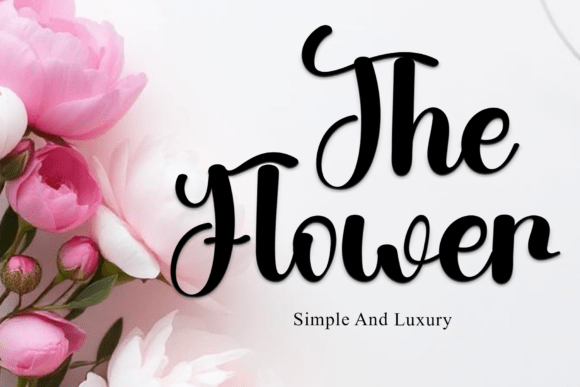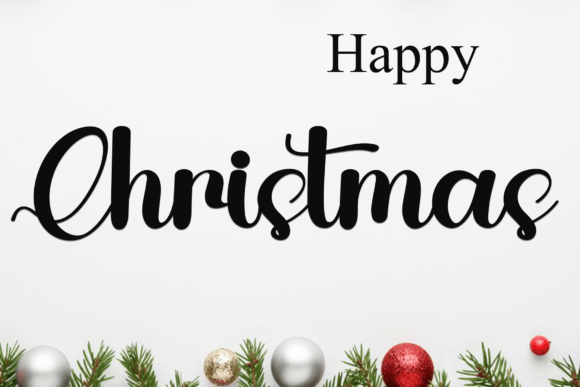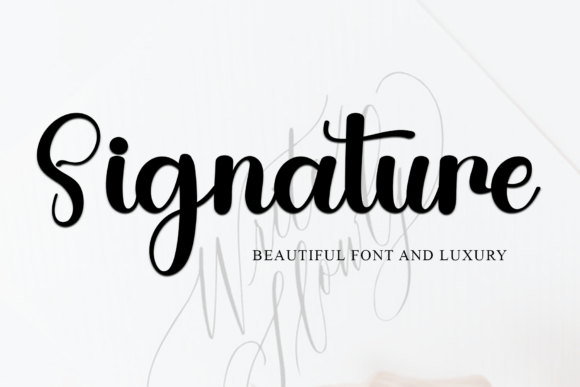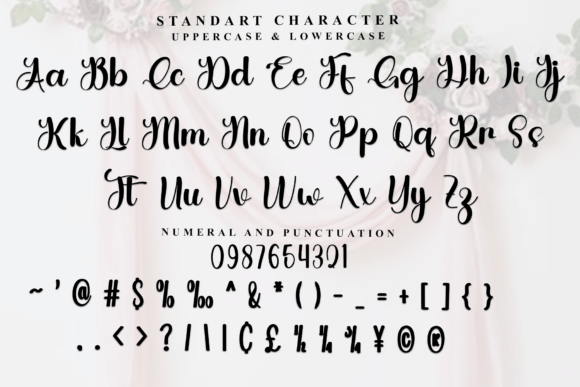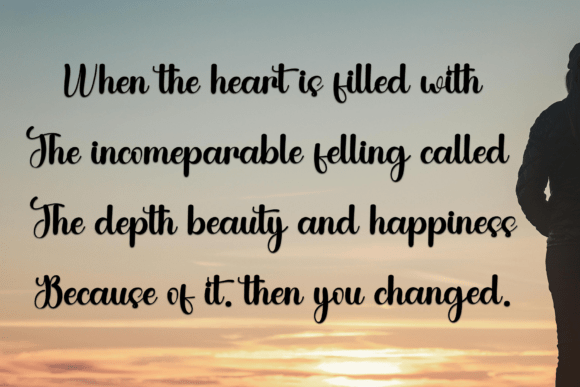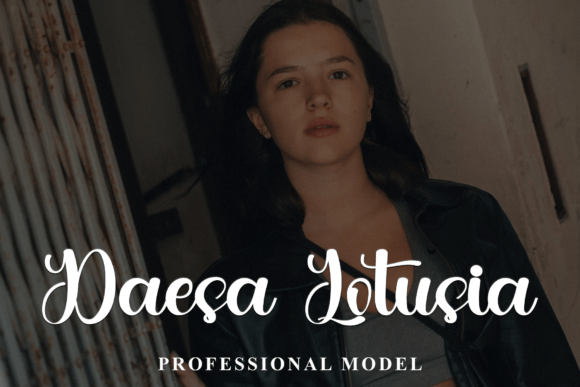
Introduction to Funny Mother Font
Have you ever found yourself scrolling through social media, coming across a post that makes you smile, and immediately wishing you had the design skills to create something just as delightful? For designers and non-designers alike, finding the perfect font can be a game-changer. That’s where the Funny Mother Font comes in – a casual and creative font that exudes warmth and friendliness, perfect for personal projects, invitations, and social media graphics.
The Funny Mother Font’s charming, hand-drawn aesthetic adds a fun and unique touch to any design, making it a valuable resource for designers looking to elevate their creative projects. With its standard PUA Encoded glyphs, this font is easily accessible in various application engines, including Adobe Photoshop, Corel, and Adobe Illustrator, making it a high-quality design resource that’s easy to work with.
Key Features of Funny Mother Font
- High-quality design: This font is crafted with attention to detail and precision, making it a valuable resource for creative projects.
- Transparent background: The font’s transparent background allows for easy layering and composition, giving designers the flexibility to create unique and engaging designs.
- Unique characteristics: The font’s playful and whimsical design makes it perfect for creative projects that require a touch of humor and personality.
- Perfect for personal projects: This font is ideal for personal projects, such as invitations, greeting cards, and social media graphics, where a personal touch is essential.
Honest Review: Funny Mother Font
I recently stumbled upon the Funny Mother Font, and I have to say, it’s been a fun addition to my design resource library. This quirky font is perfect for those creative projects where you want to add a touch of humor and personality.
Here are some of the things that I love about the Funny Mother Font:
- ✨ High quality design: The font is crisp and clean, making it perfect for printing and digital use.
- ✨ Transparent background: This makes it easy to layer the font over other design elements without worrying about a background getting in the way.
- ⚠️ Limited character set: The font only includes a limited number of characters, so you may need to use a different font for certain letters or symbols.
- ⚠️ Not ideal for formal projects: The font’s playful design may not be suitable for formal or professional projects, such as business cards or resumes.
Overall, I’m really impressed with the Funny Mother Font. It’s a great addition to any designer’s library, and I’m excited to see how I can use it in future projects.
Tips for Getting the Most Out of Funny Mother Font
For best results, use Funny Mother Font on a high-quality design resource, such as a professional brochure or website. You can also use it as a creative project for social media or advertising campaigns. Make sure to adjust the font size and color to match the tone and style of your project.
Funny Mother Font is perfect for use in designs that require a playful and whimsical touch, such as children’s products, food packaging, or greeting cards. You can also use it in designs that need a touch of humor, such as memes or social media posts.
Does Funny Mother Font have a transparent background?
Yes, the Funny Mother Font has a transparent background, making it easy to use in designs with complex backgrounds or overlays. The font’s transparent background is achieved through a combination of advanced design techniques and high-quality rendering.